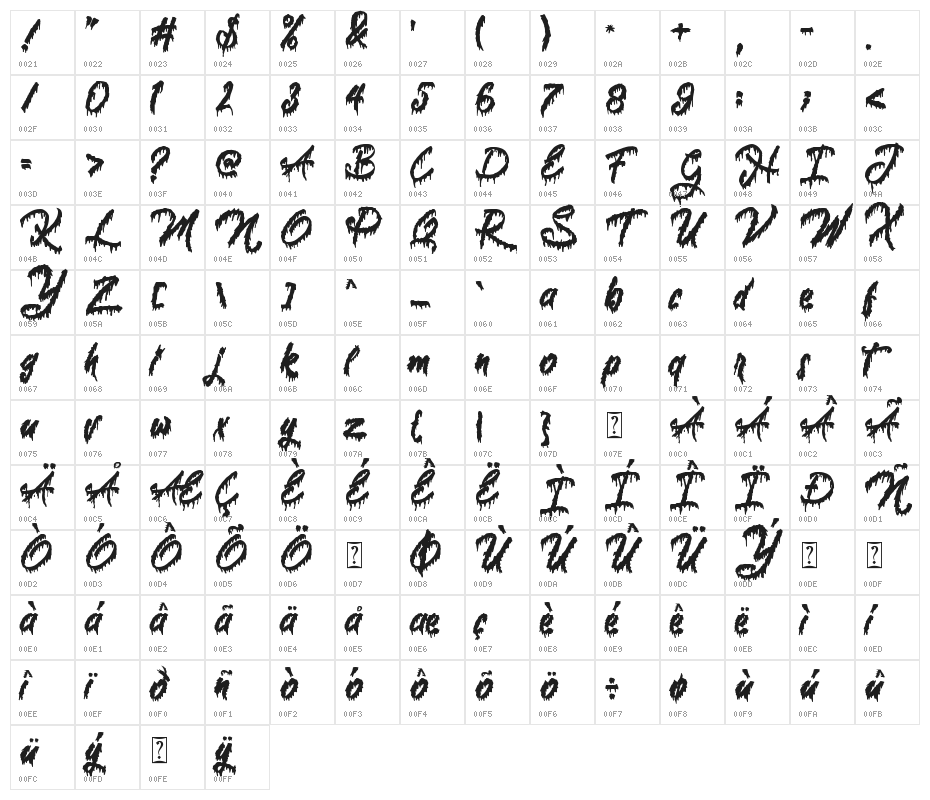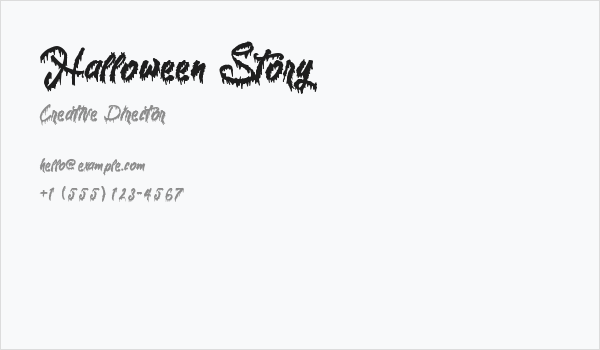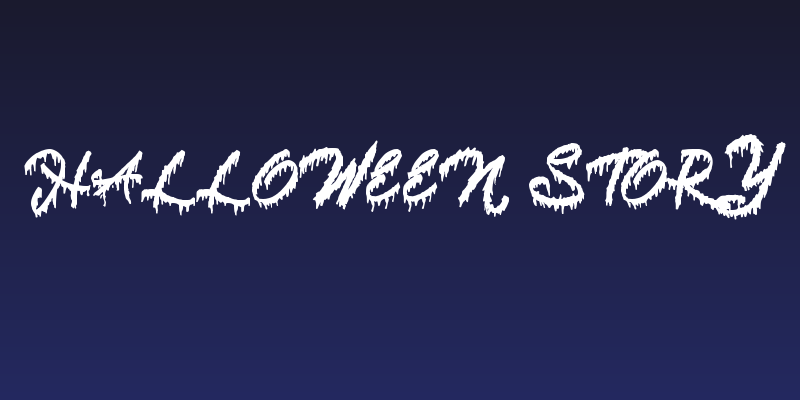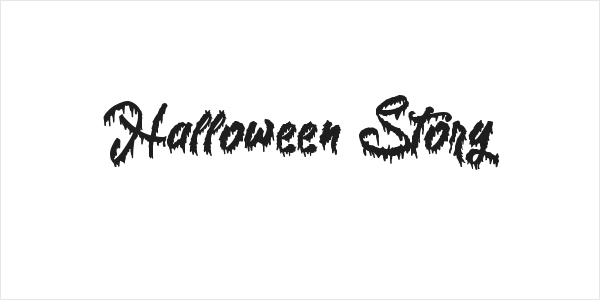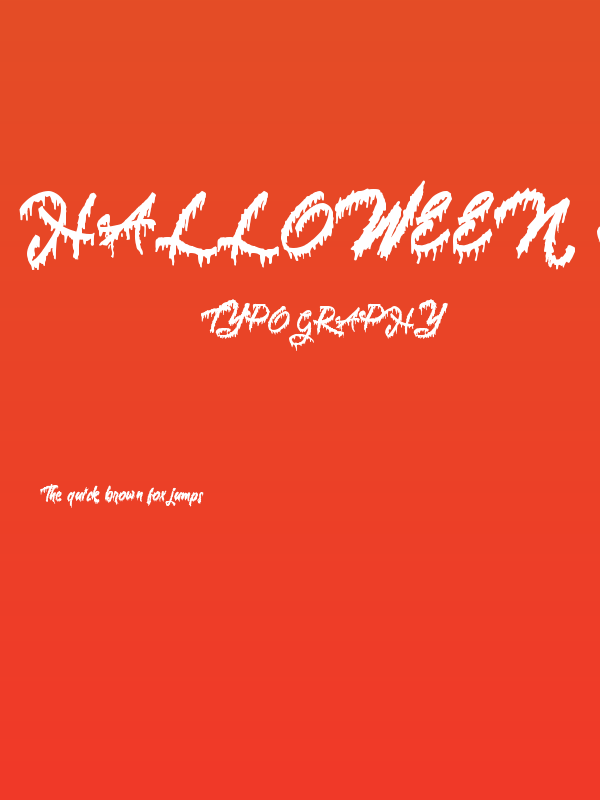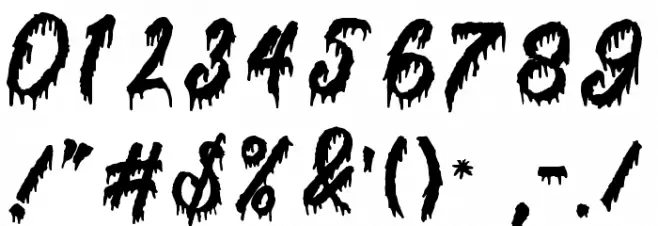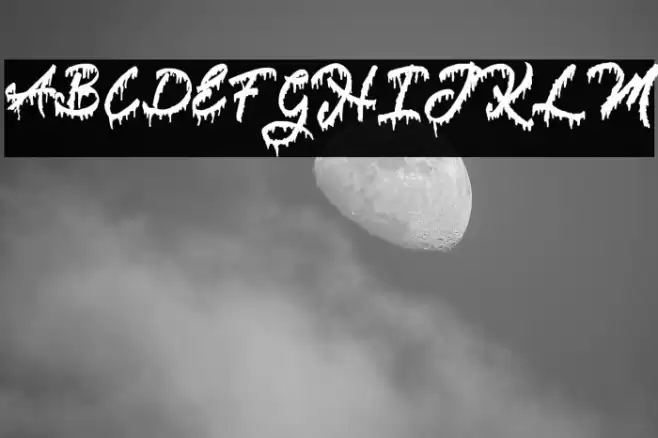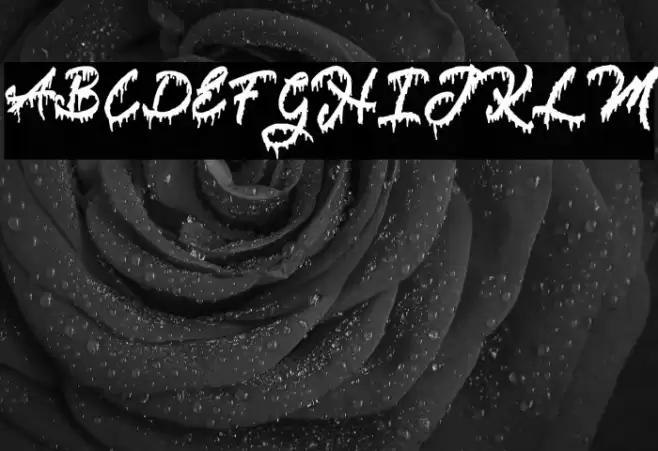
Halloween Story Font
This font exudes a spooky and eerie vibe, perfect for Halloween-themed projects. The characters appear to be dripping, reminiscent of melting wax or blood, which adds to its chilling effect. The uppercase and lowercase letters maintain a consistent style, with jagged edges and irregular shapes that enhance the horror aesthetic. Numbers and special characters follow the same design, ensuring a cohesive look across all text elements. The font's unique style makes it ideal for creating eye-catching titles and headings that demand attention.
| Proposed Projects | Ideal for Halloween posters, horror movie titles, haunted house flyers, and spooky event invitations. |